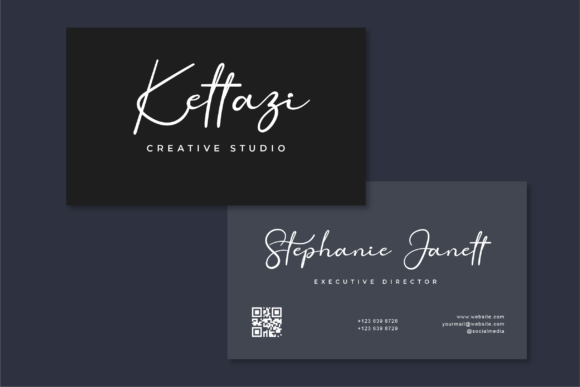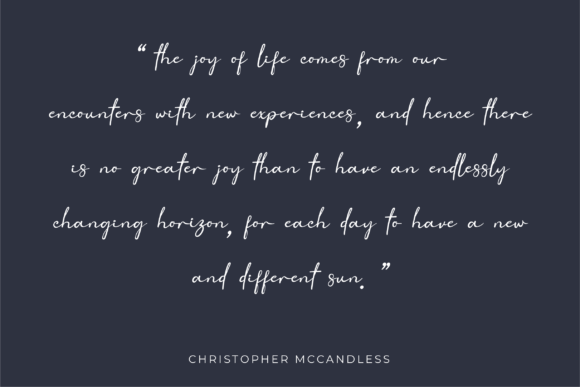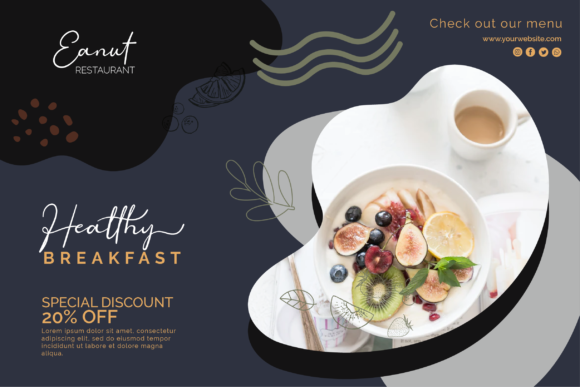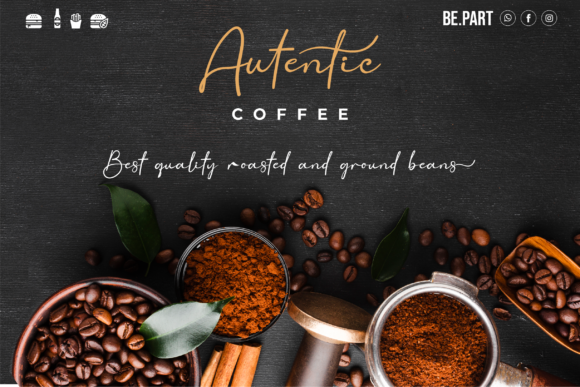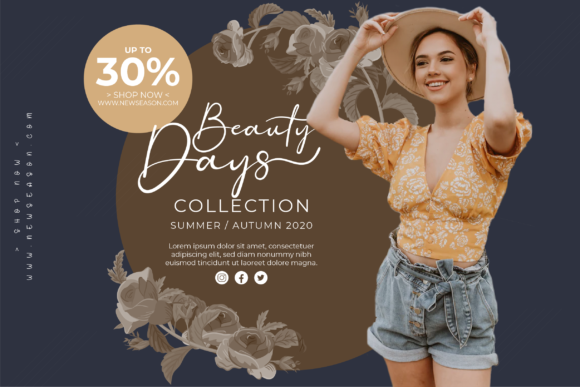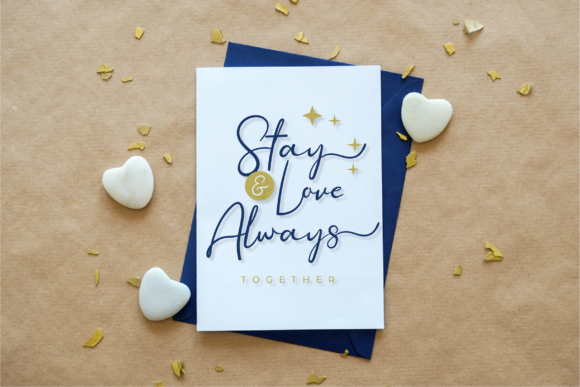
The Perfect Blend of Elegance and Creativity: Unveiling the Coconut Beach Font
As designers, we’ve all been there – staring at a blank canvas, trying to conjure up the perfect combination of style and substance. The moment of clarity hits, and suddenly, the vision begins to take shape. It’s in these moments of creative breakthrough that we discover the beauty of typography, and the Coconut Beach Font is no exception.
Coconut Beach Font is a masterfully crafted monoline font that effortlessly blends timeless elegance with authentic calligraphy. With its classic style and friendly feel, this font is the perfect addition to any design project. Whether you’re a seasoned professional or an emerging designer, the Coconut Beach Font is sure to elevate your work to new heights. Its versatility makes it an invaluable tool for any creative looking to make a lasting impression.
Coconut Beach Font Key Features
- Unique Characteristics: The Coconut Beach Font features a unique, hand-drawn design with a relaxed, beachy feel, perfect for creating a casual and inviting atmosphere in designs.
- Font Style: The font is available in both Regular and Italic styles, allowing designers to choose the best fit for their project.
Designer Review: Coconut Beach Font
✨ The Coconut Beach Font is a visually appealing and fun font that’s perfect for creating a tropical vibe in your designs. It features a unique blend of modern and vintage elements that will transport your audience to a sunny beach. The font is highly customizable, making it suitable for various design projects, from branding and advertising to editorial and entertainment content.
✨ I appreciate the high level of detail and care that has gone into designing this font. Each character is carefully crafted to evoke a sense of warmth and relaxation. The font’s weight and line width variations also make it easy to use in different design contexts, from large headlines to body text.
⚠️ One potential limitation of the Coconut Beach Font is its limited language support. Currently, it only includes characters for the English language, which might be a concern for designers who need to support other languages in their projects.
⚠️ Additionally, the font’s unique design might not be suitable for all types of projects. For example, it might not be the best choice for formal or professional designs, where a more traditional or conservative font would be more suitable.
The Coconut Beach Font is a unique and visually appealing font that’s perfect for creating a tropical vibe in your designs. While it has some limitations, it’s still a great choice for designers who want to add a touch of fun and personality to their projects.
Recommendation
- Use the Coconut Beach Font for designs that require a tropical or beachy feel.
- Choose this font for projects that involve a mix of modern and vintage elements.
- Consider this font for designs that need a high level of customization and flexibility.
The Coconut Beach Font is perfect for creating beach-themed designs, such as posters, flyers, and social media graphics.
Use the font to add a tropical touch to your designs, such as a palm tree or a beach ball.